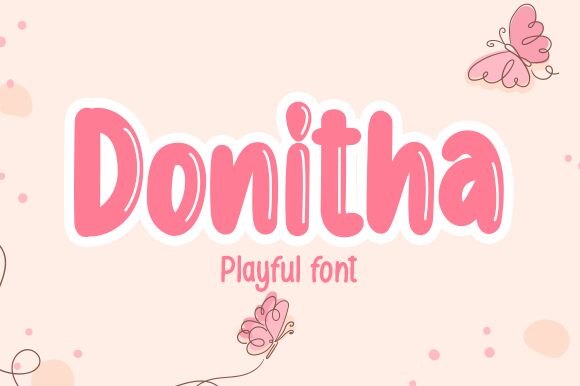
Donitha Shiny is a narrow display font designed by Risma Ramawi. Its cartoon-style and playful nature make it an ideal choice for fun projects such as designing posters, logos or children's books.